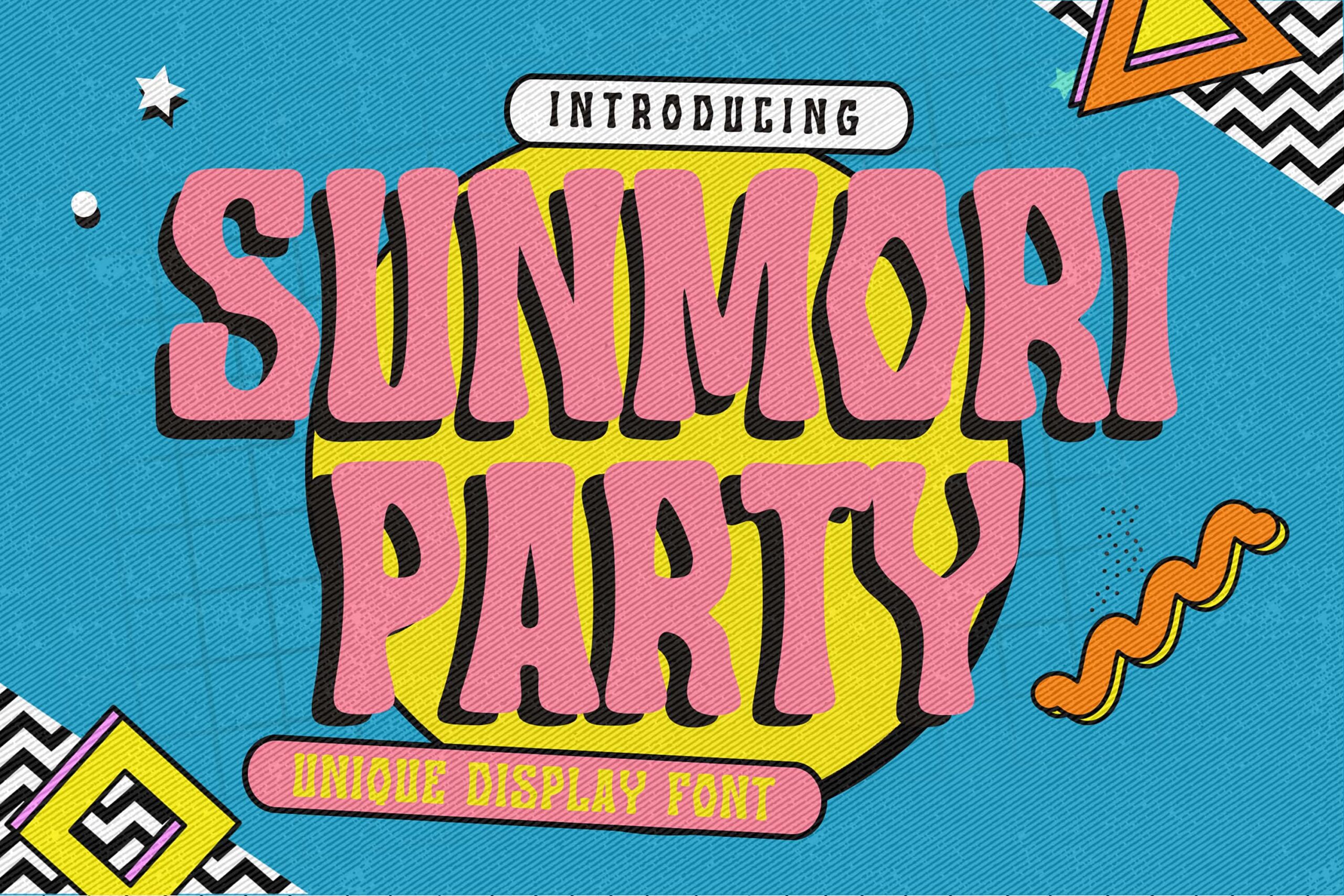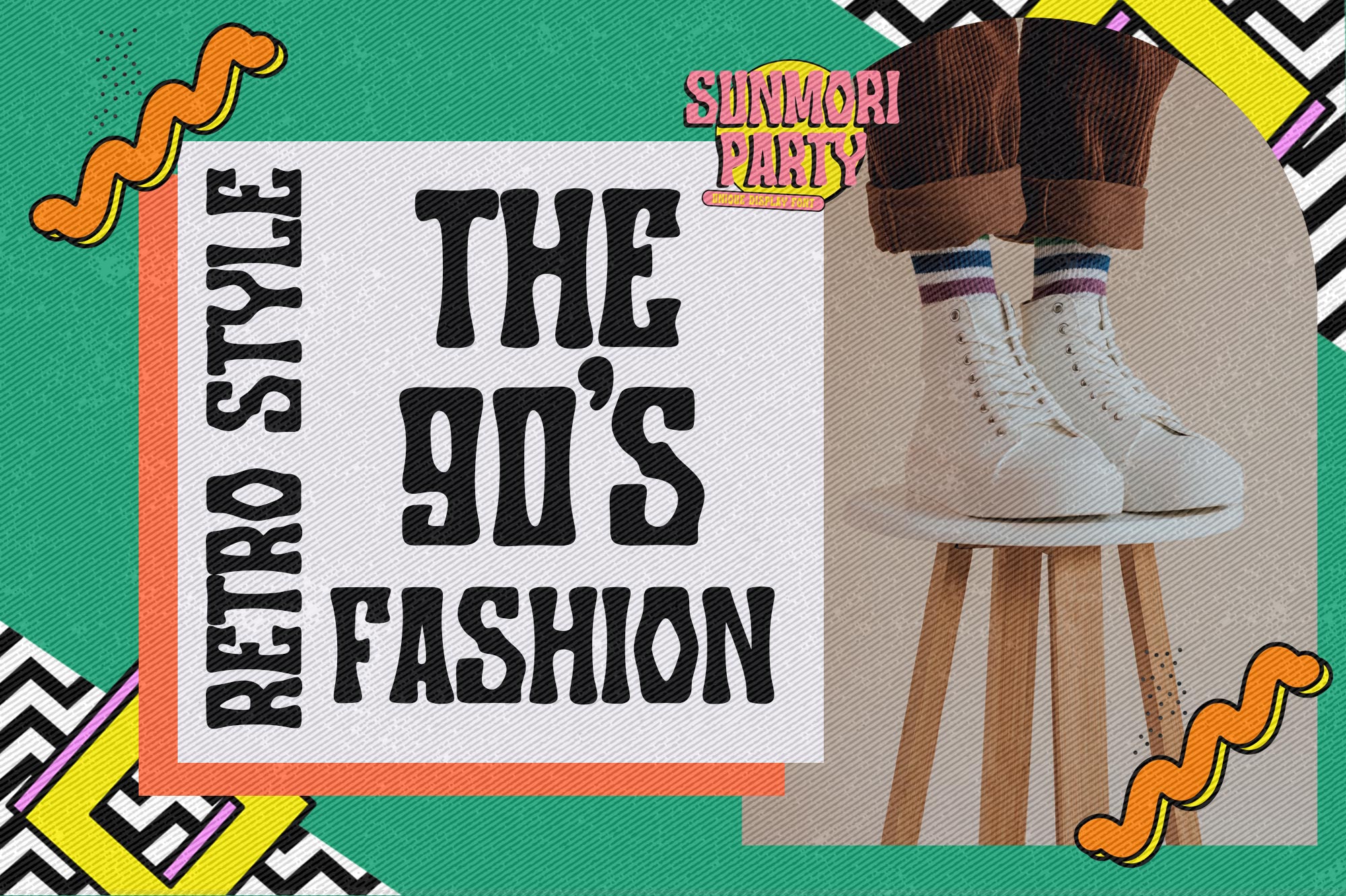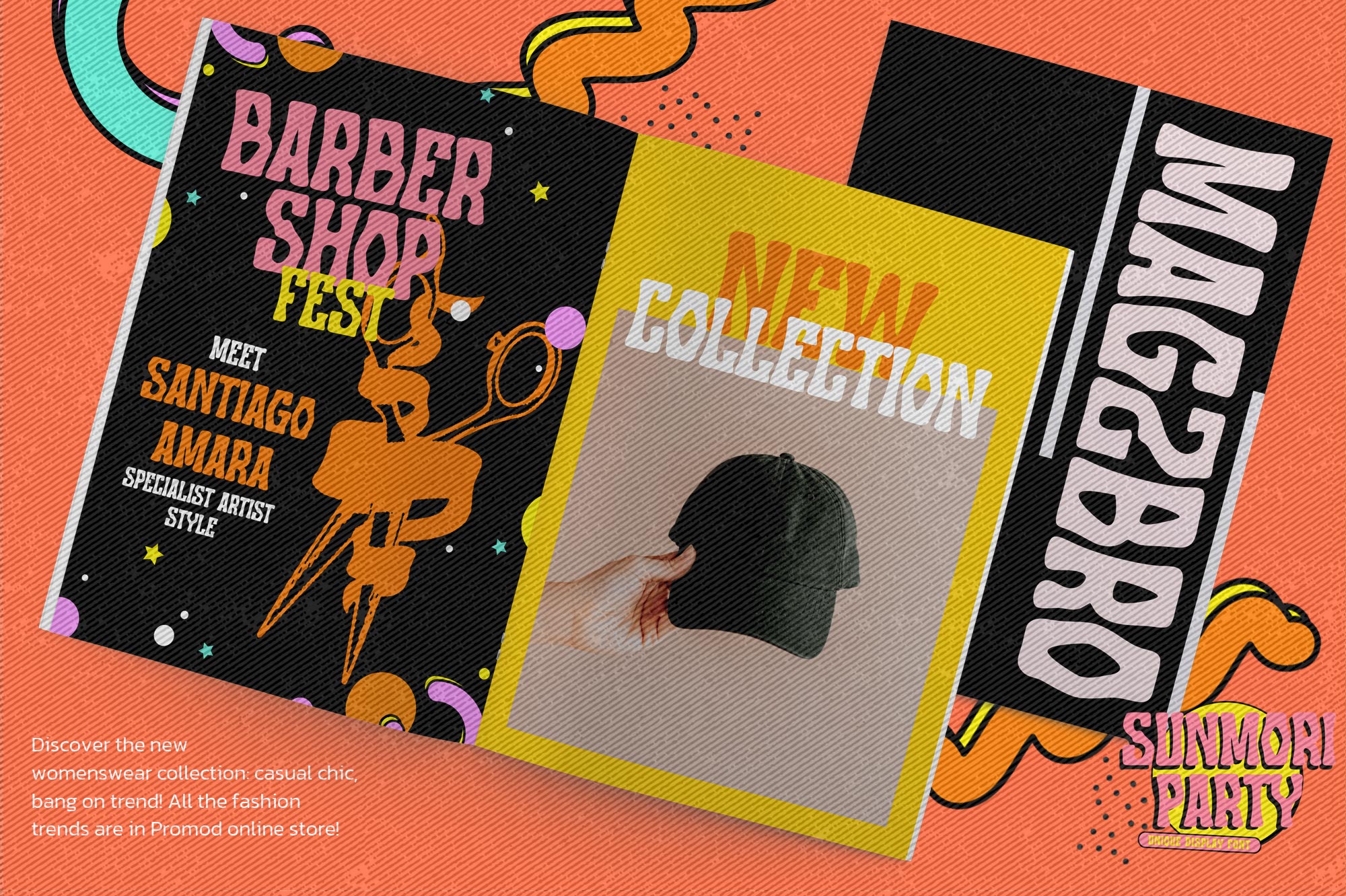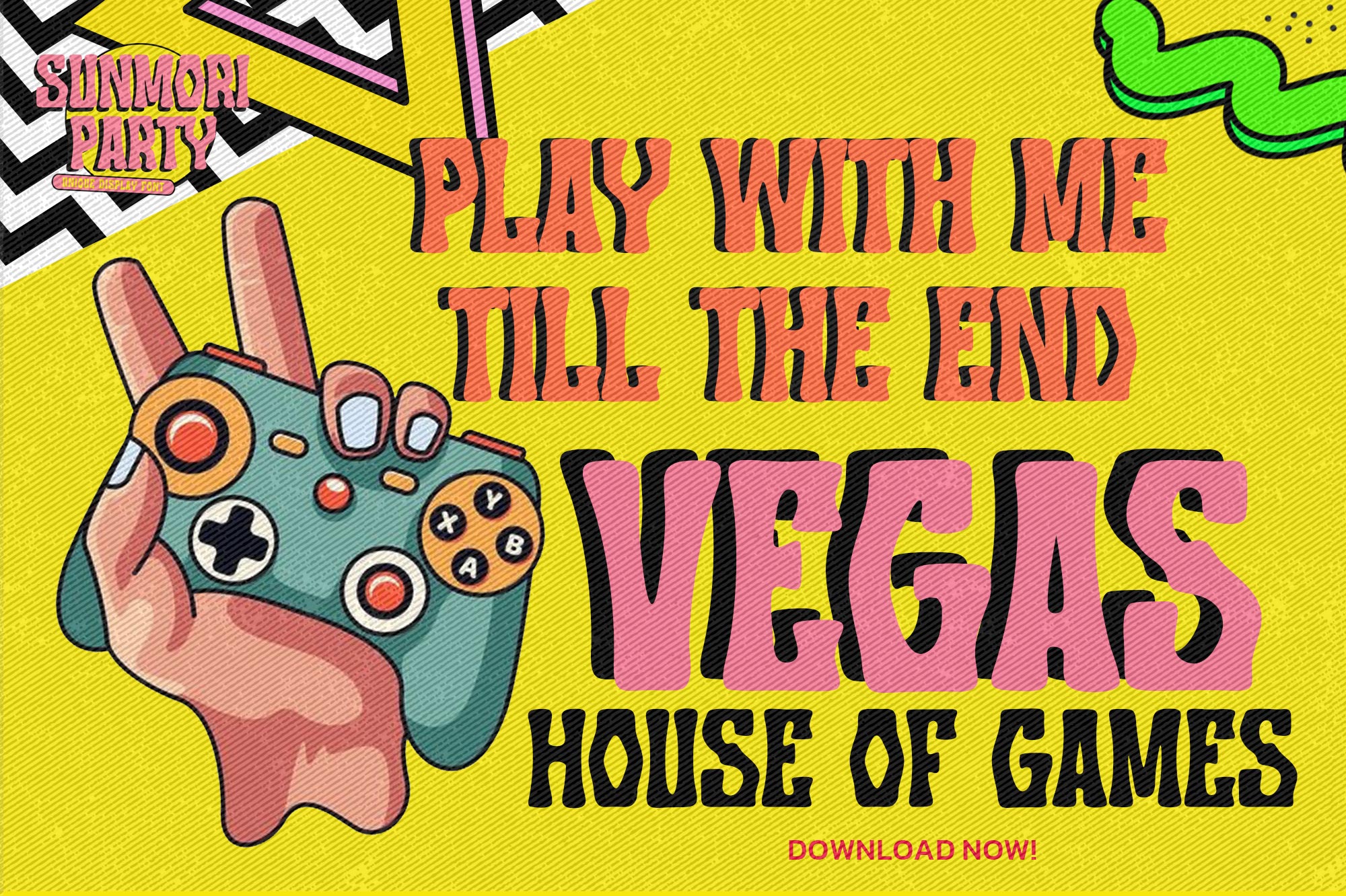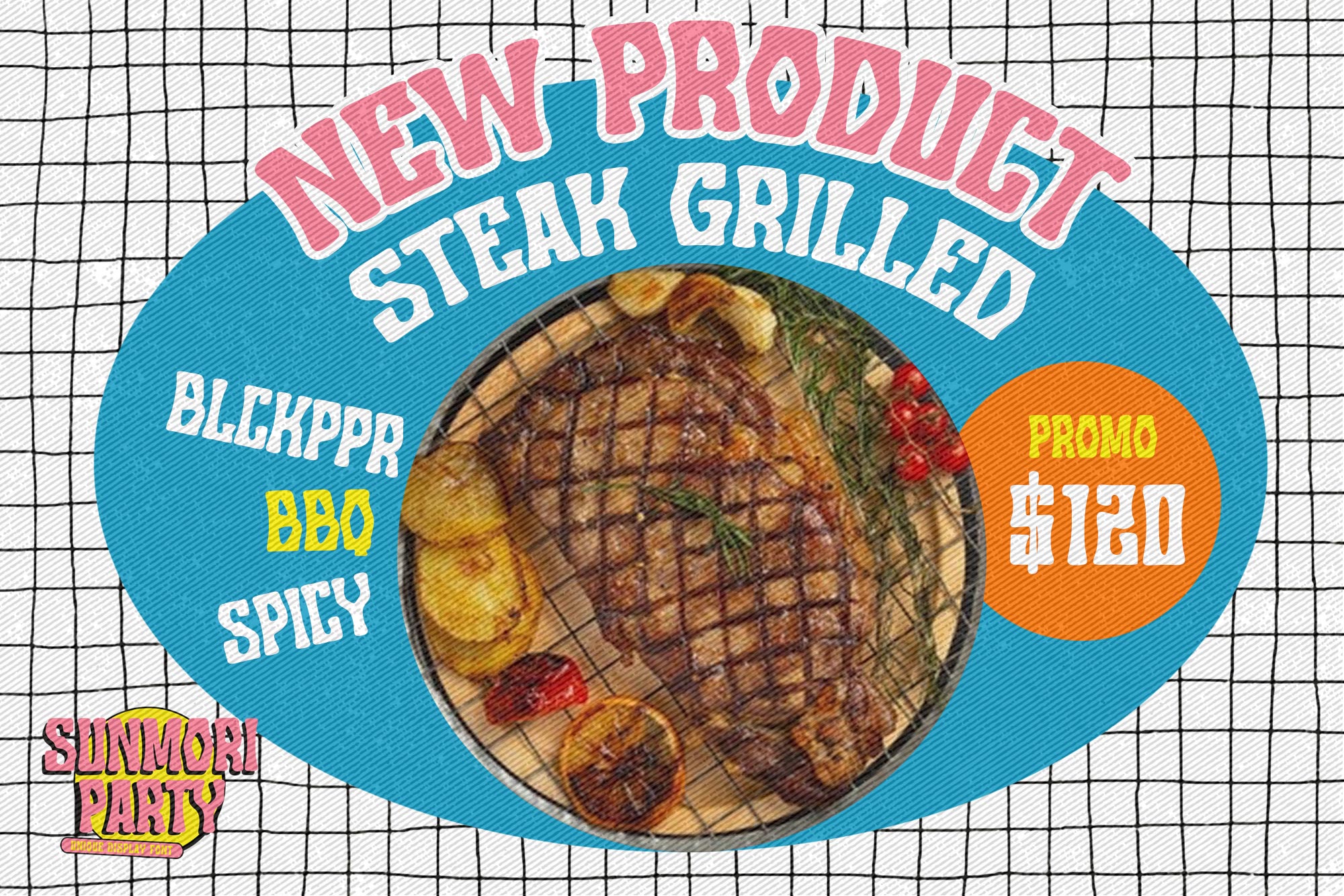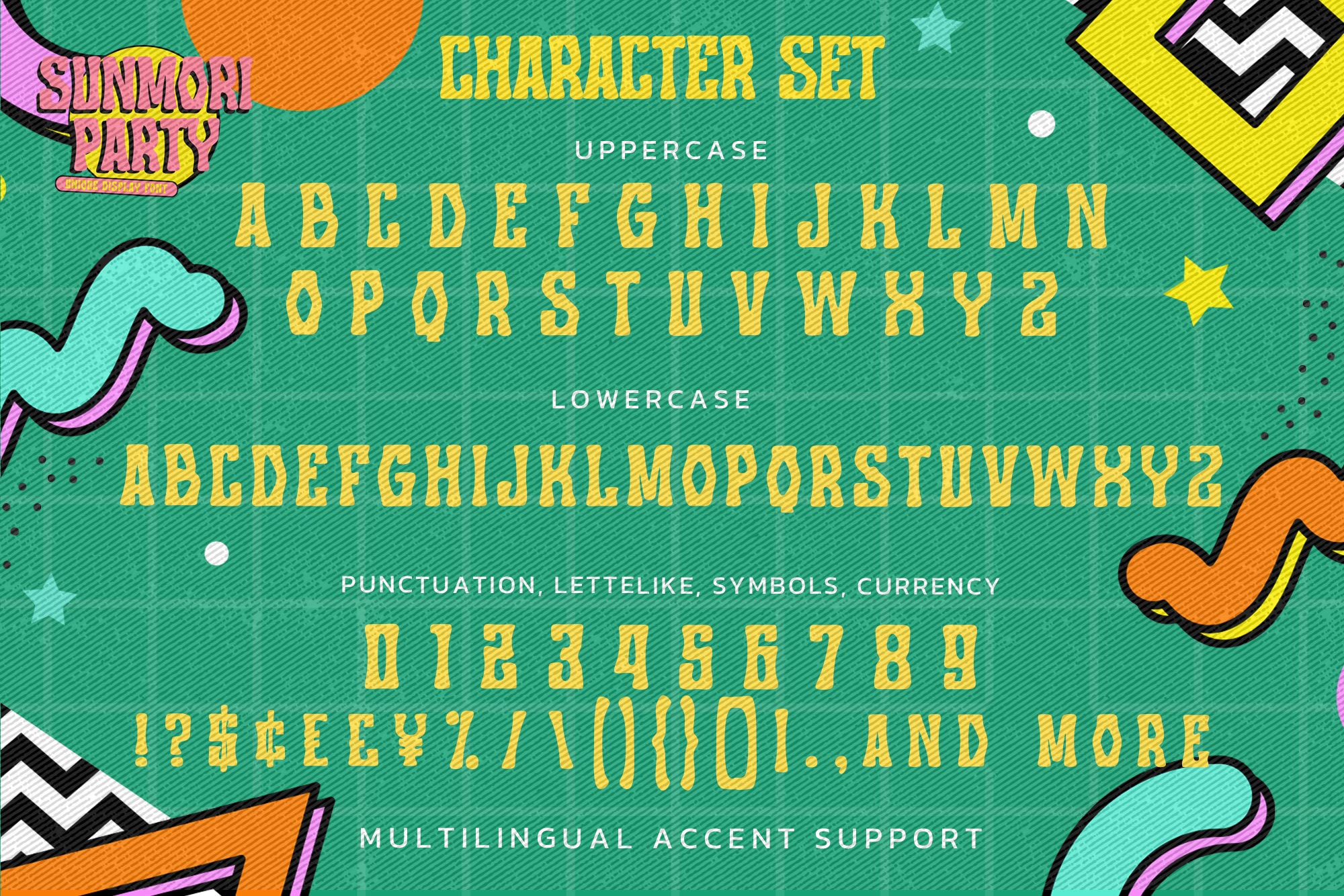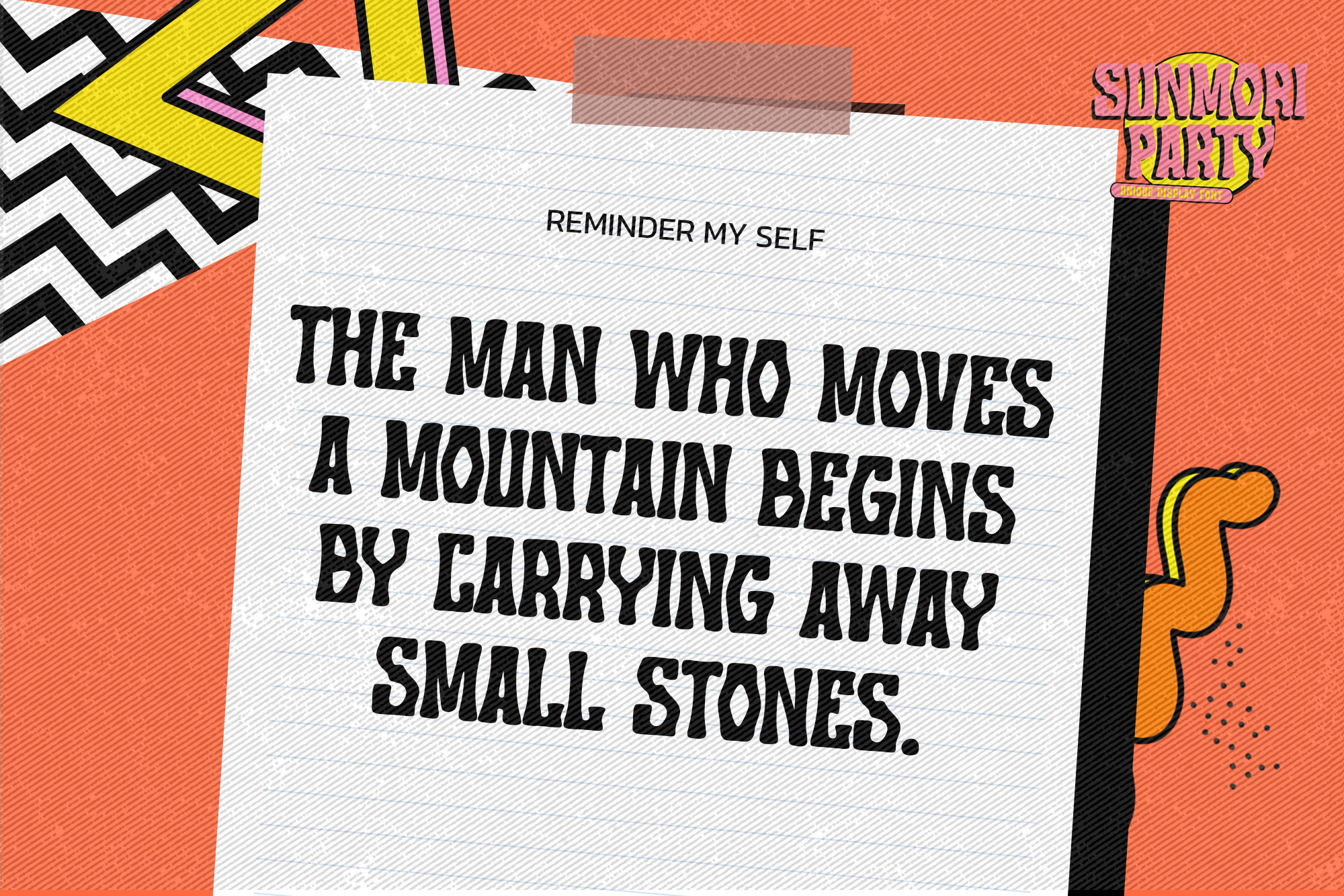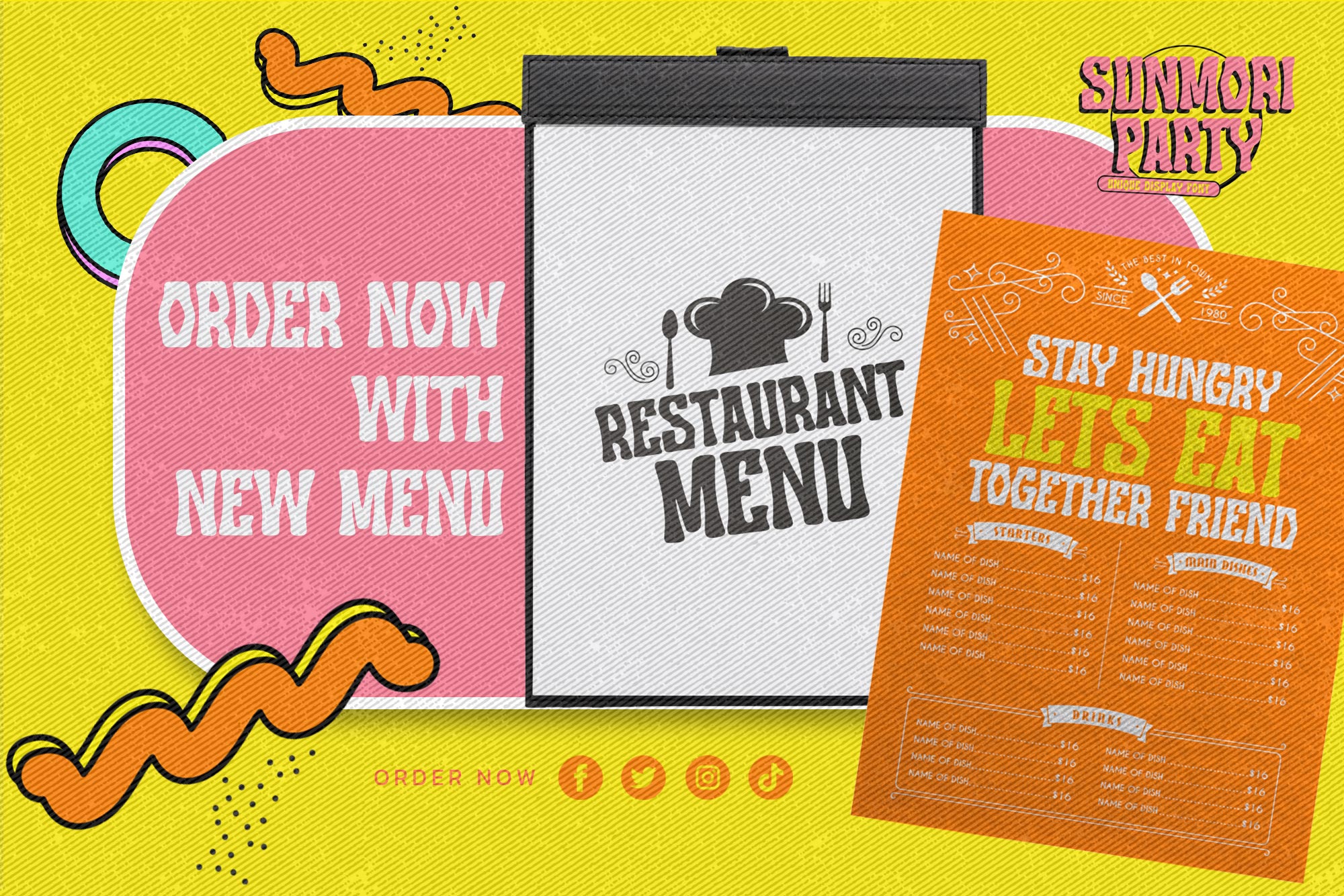
Sunmori Party – Unique Display Font, modern style and dramatic movement that is written casually and quickly.
The best for labels,poster,project , designs look modern, authentic and unique. It’s perfect for labels, quotes, posters, DIY projects, branding, packaging, greeting cards, websites, photography overlays, signs, scrapbooking, tags and so much more! That is why Sunmori Party has a textured, and elegant characteristic more natural look.